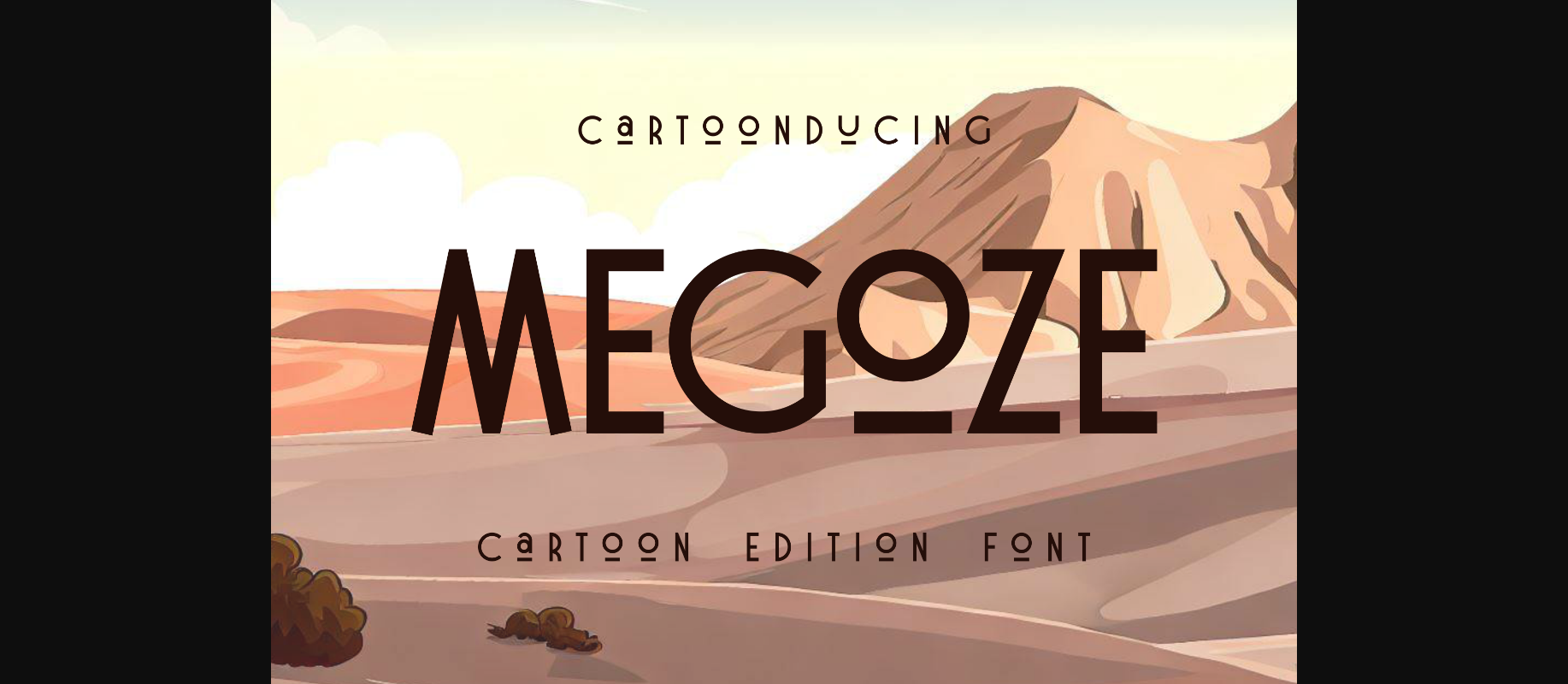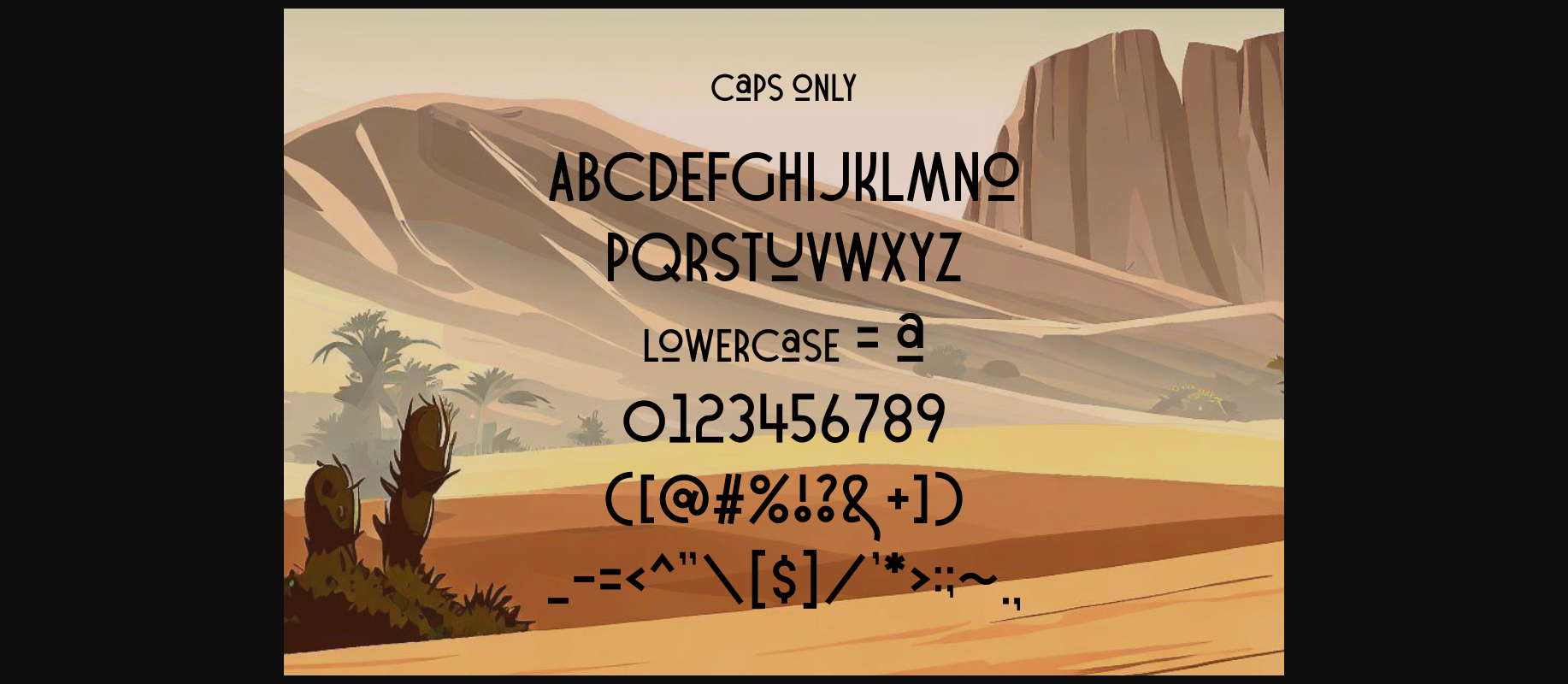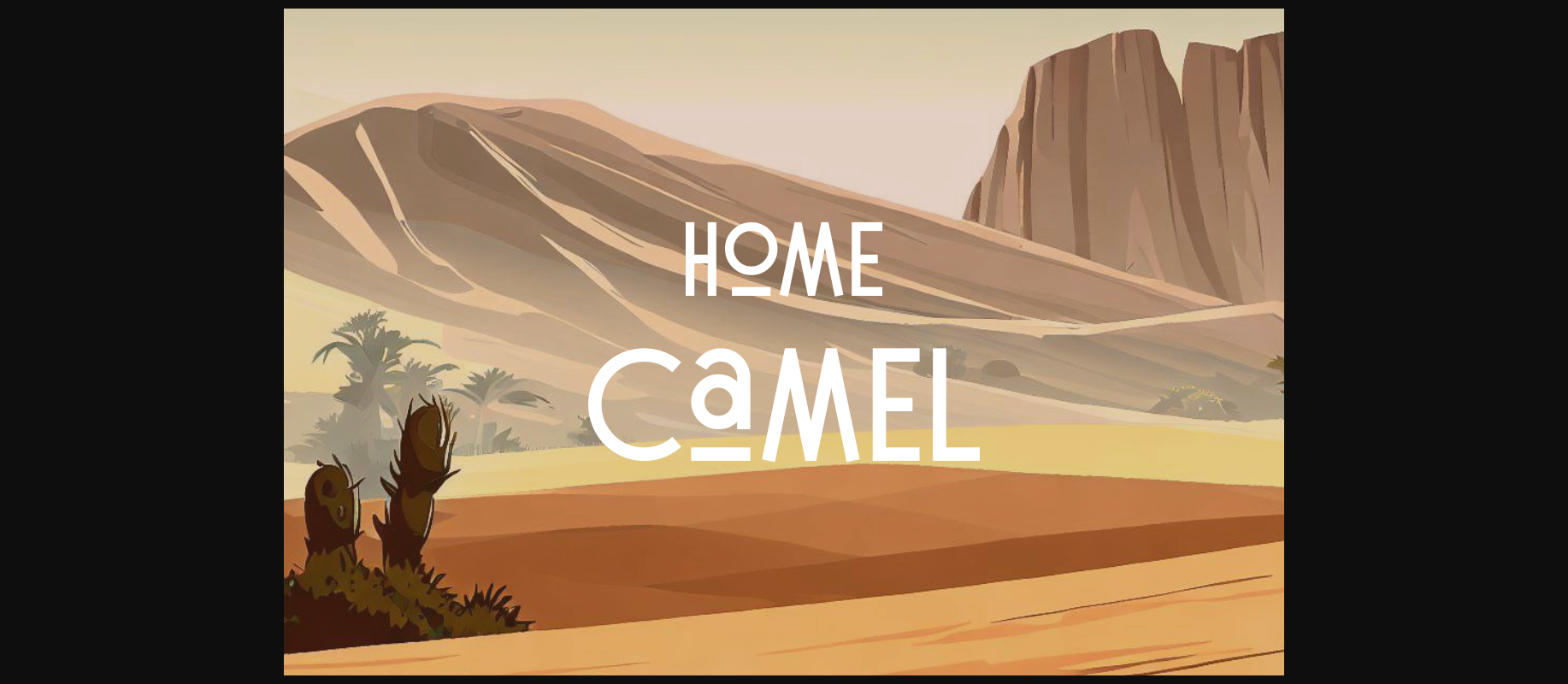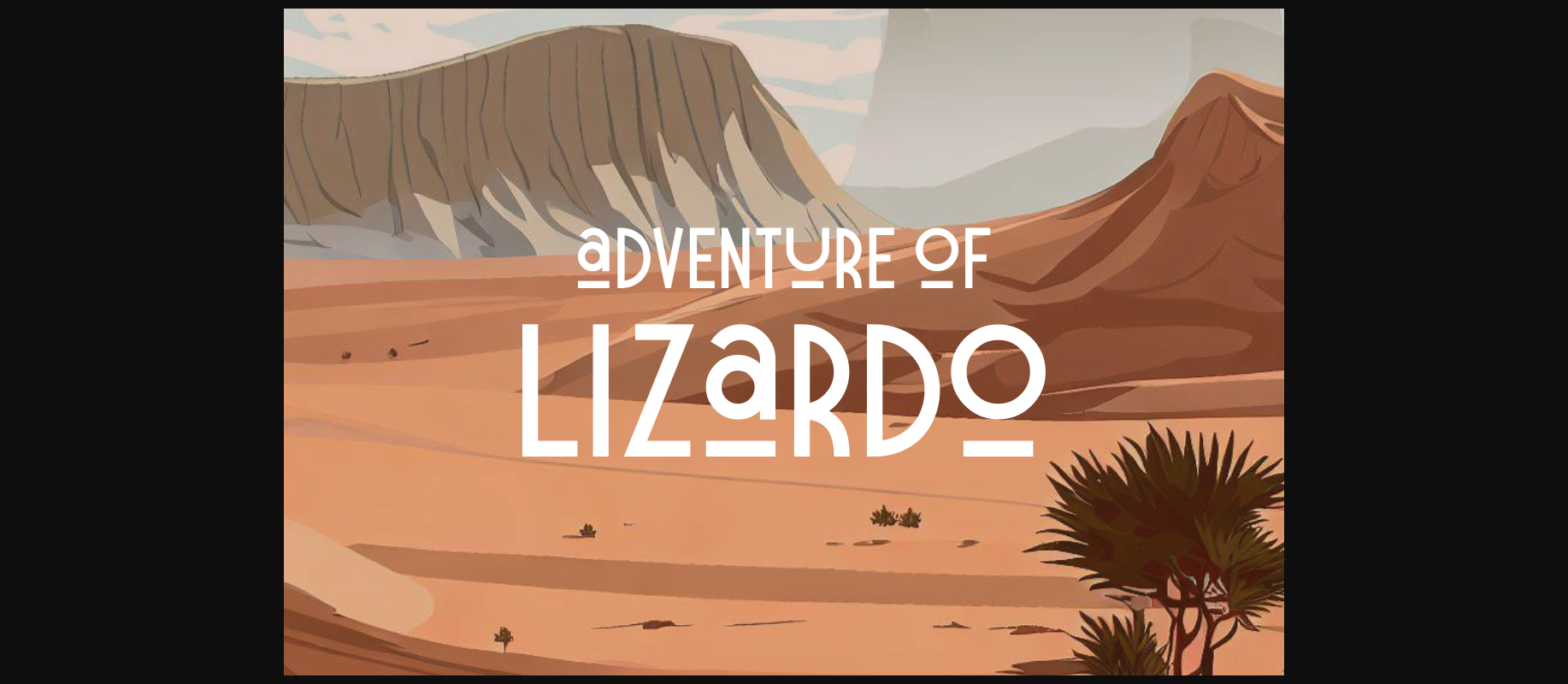
About Megoze Font
Megozeis a font for cartoon needs, it can also be applied with other vector forms such as fun situations. Is for suitable children’s magazines or story books, where the hero characters are written in this font.
So, create magic with this font.